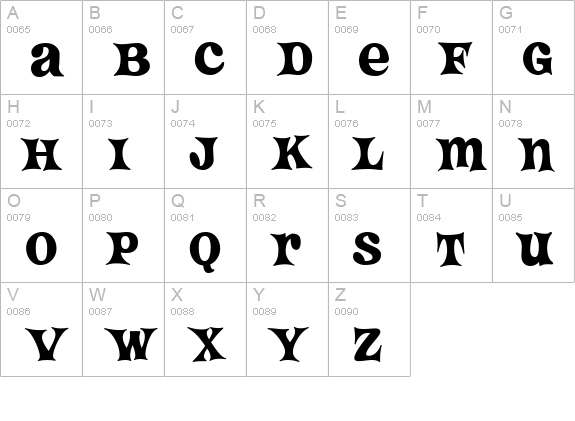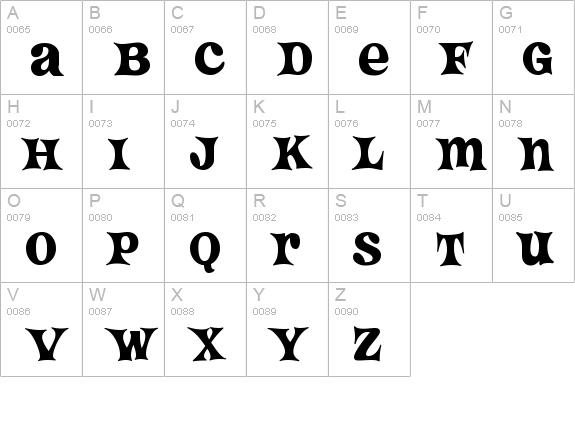
Crazy HaroldAlt font is a whimsical and quirky typeface that exudes a sense of playfulness and creativity. With its unique and unconventional letterforms, this font is perfect for adding a touch of fun and personality to your designs. Whether you're working on a poster, logo, or branding project, Crazy HaroldAlt will surely make your text stand out. What makes Crazy HaroldAlt font even more appealing is that it is available for free download at FontsMarket.com. This means you can easily access this charming font without any cost, making it a great option for designers looking to add a touch of whimsy to their projects without breaking the bank. Don't miss out on the opportunity to enhance your designs with the free-spirited charm of Crazy HaroldAlt font.